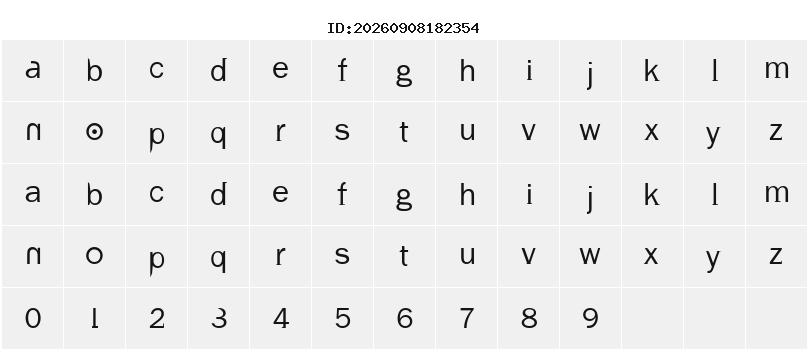
Volt Preview
• Font Name: Volt
• Full Font Name: Volt
About Volt.ttf
Volt.ttf is a modern, elegant sans-serif font designed for ultimate readability and visual harmony. Perfect for branding, headlines, web design, and print materials.